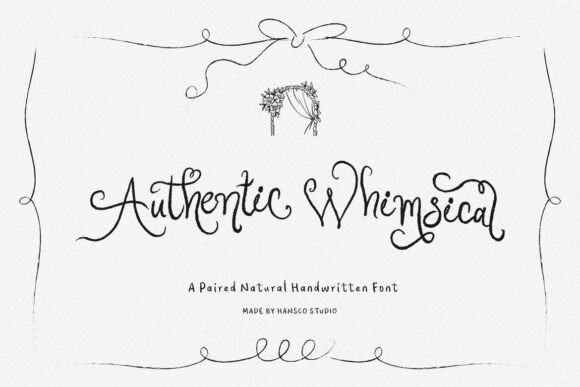
Authentic Whimsical: The Magical Font That Transforms Everyday Design into Art
In the vast and ever-evolving landscape of digital design, finding a typeface that strikes the perfect balance between elegance, mystery, and versatility can feel like searching for a hidden treasure. Most designers are familiar with standard scripts or rigid sans-serifs, but few possess the unique character required to truly capture a sense of magic. Enter Authentic Whimsical, a gorgeous and elegant curly font with an incredibly magical feel that has quickly become a favorite among creative professionals and hobbyists alike. This article explores what makes this typeface special, how it fits into modern creative workflows, and why it is more than just a decorative element—it is a tool for storytelling.
What Makes Authentic Whimsical Unique?
At first glance, Authentic Whimsical appears to be a standard script font, but a closer inspection reveals a depth of detail that sets it apart from generic alternatives. The font is defined by its gorgeous and mysterious swashes and ligatures. In typography, a swash is an ornamental flourish added to a letterform, often extending above or below the baseline. Ligatures are characters created by combining two or more letters into a single glyph to improve the flow and aesthetic of the text.
These features are not merely decorative; they serve a functional purpose in design. They create a visual rhythm that guides the reader's eye across the page, making the text feel organic and hand-crafted rather than mechanically generated. Whether you are designing a wedding invitation, a fantasy book cover, or a social media graphic, these intricate details add a layer of sophistication that immediately elevates the perceived value of the project.
The font's versatility is perhaps its most defining characteristic. While many script fonts are limited to specific themes (like vintage or gothic), Authentic Whimsical bridges the gap between formal elegance and playful creativity. It allows designers to inject a "magical" atmosphere into any project without sacrificing readability. This adaptability ensures that the font remains relevant across various industries, from high-end fashion branding to whimsical children's literature.
The Power of Swashes and Ligatures
To understand the true potential of Authentic Whimsical, one must appreciate the technical mastery behind its swashes and ligatures. These elements work together to solve common problems in script typography, such as awkward spacing or disjointed letter connections. When a designer uses this font, they do not need to manually adjust kerning pairs to make the text look natural. Instead, the built-in ligatures handle the transitions seamlessly.
- Swashes: These add a dramatic flair, perfect for initial capitals or emphasis within a sentence. They mimic the fluid motion of a calligraphy pen, adding a human touch to digital designs.
- Ligatures: By connecting letters naturally, ligatures ensure that words flow smoothly, preventing the text from looking choppy or disjointed.
This level of automation is crucial for modern designers who need to produce high-quality work quickly. It removes the tedious task of manual tweaking, allowing the creator to focus on the broader artistic vision.
Practical Applications in Modern Life and Business
The relevance of Authentic Whimsical extends far beyond simple decoration. In today's digital-first world, where attention spans are short and visual competition is fierce, having a distinctive typographic voice is essential. This font finds itself at the intersection of several key areas of modern life, including social media marketing, event planning, and creative branding.
Instagram and Social Media Aesthetics
Social media platforms like Instagram have become visual galleries where aesthetics dictate engagement. Users scroll through thousands of images daily, and a post with unique typography stands out immediately. Authentic Whimsical is perfectly suited for creating captions, story overlays, and profile highlights that convey a sense of enchantment.
Imagine a lifestyle brand promoting a new line of artisanal candles. Using a standard sans-serif might look clean, but using Authentic Whimsical evokes the scent of lavender and the flicker of candlelight. It transforms a simple product announcement into an immersive experience. For influencers and content creators, this font offers a way to establish a personal brand identity that feels intimate, authentic, and slightly mysterious.
Calligraphy Scripts and Event Design
While digital fonts cannot replicate the texture of ink on paper, they come remarkably close in terms of spirit. Authentic Whimsical serves as an excellent alternative for those who love the look of calligraphy but require the scalability and ease of use of a digital typeface. It is ideal for:
- Wedding Invitations: Creating a romantic and timeless feel for save-the-dates and formal invites.
- Branding Packages: Designing logos and business cards for boutique businesses, spas, or creative studios.
- Event Signage: Crafting welcome signs and menus that set the tone for a gala, party, or workshop.
Whether you are an experienced graphic designer looking to expand your toolkit, a small business owner wanting to elevate your brand, or a hobbyist dreaming up your next project, Authentic Whimsical offers the tools to bring your vision to life. It proves that typography can be an emotional experience, capable of transporting the viewer to a place of wonder and elegance. As you embark on your next creative journey, consider how the magic of Authentic Whimsical can transform your work from ordinary to extraordinary.